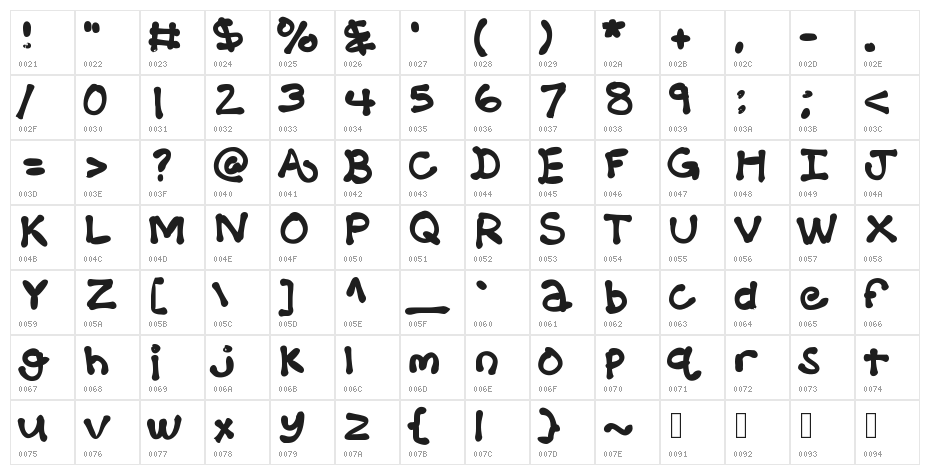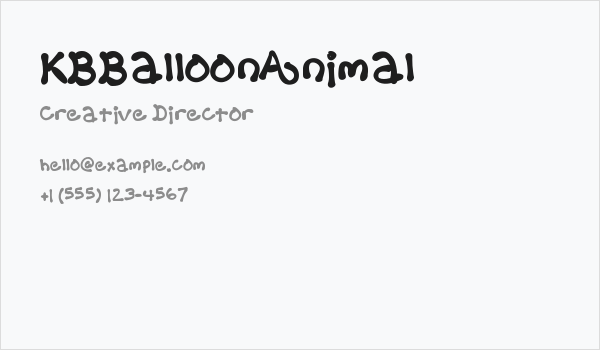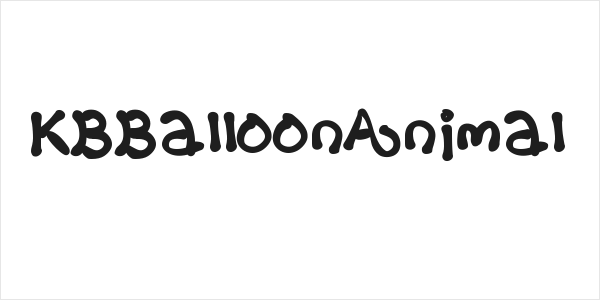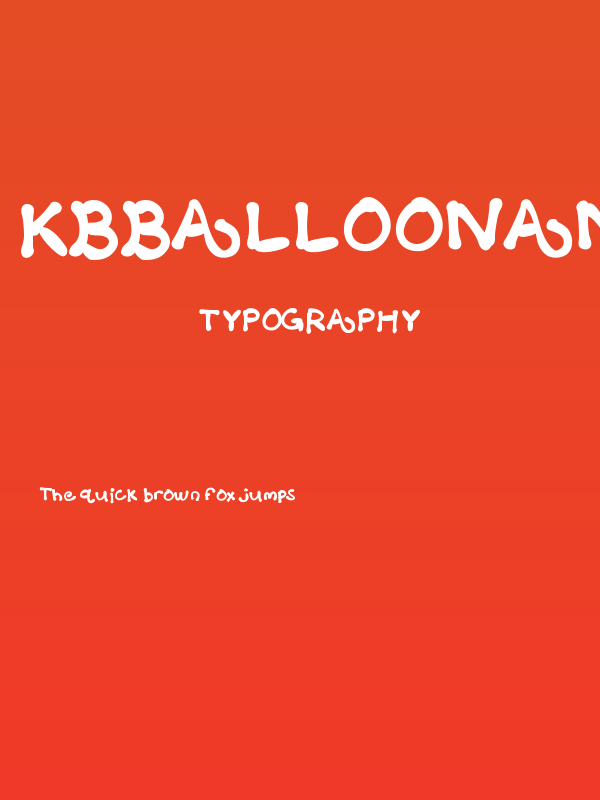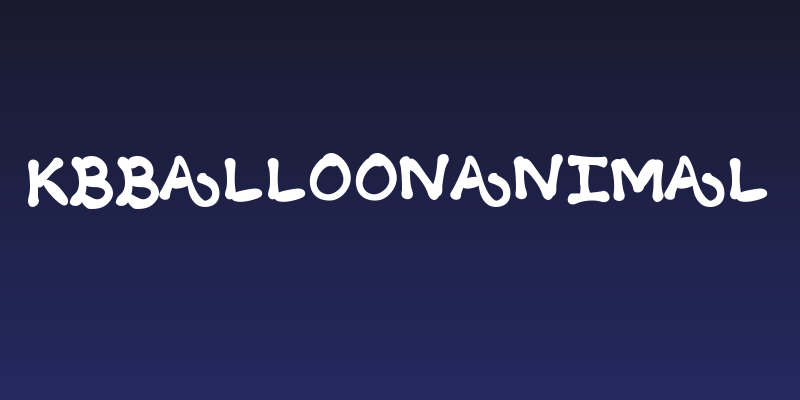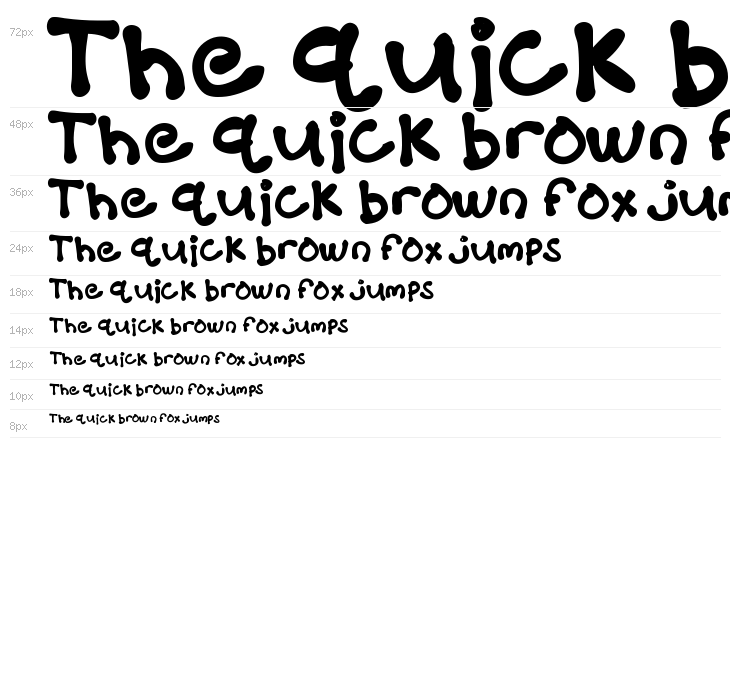
KBBalloonAnimal Font
KBBalloonAnimal Description
This playful and whimsical font features characters that resemble inflated balloons, giving it a fun and lively appearance. The letters are rounded and have a bouncy, three-dimensional look, with a consistent thickness throughout each character. The font maintains a uniform baseline, while the curves and loops add a sense of movement and joy. It's perfect for projects that require a lighthearted and cheerful touch, such as children's party invitations, playful branding, or any design that aims to evoke a sense of fun and creativity.
Overall StylePlayful
Proposed ProjectsIdeal for children's party invitations, playful branding, and creative designs.